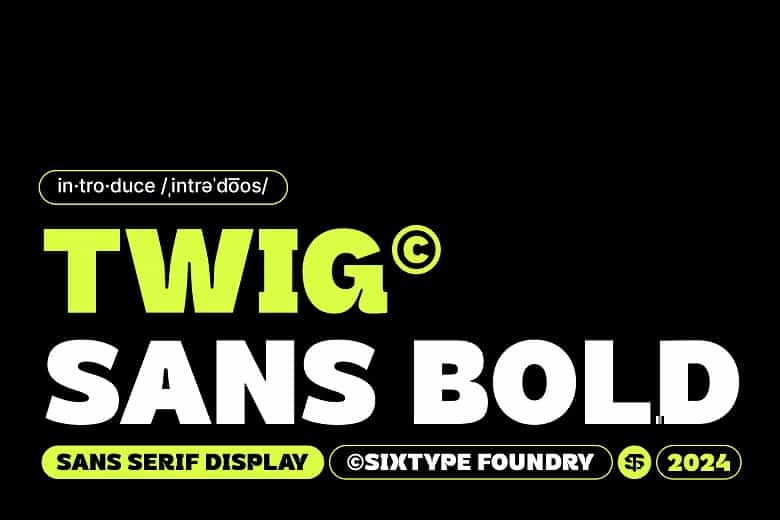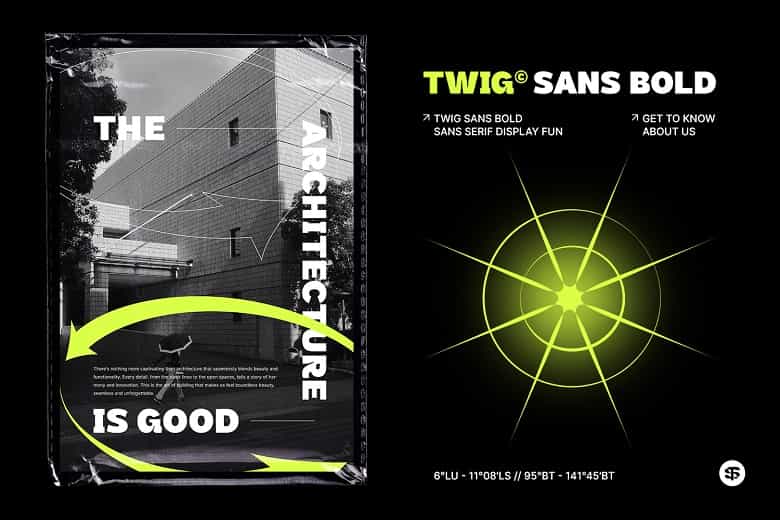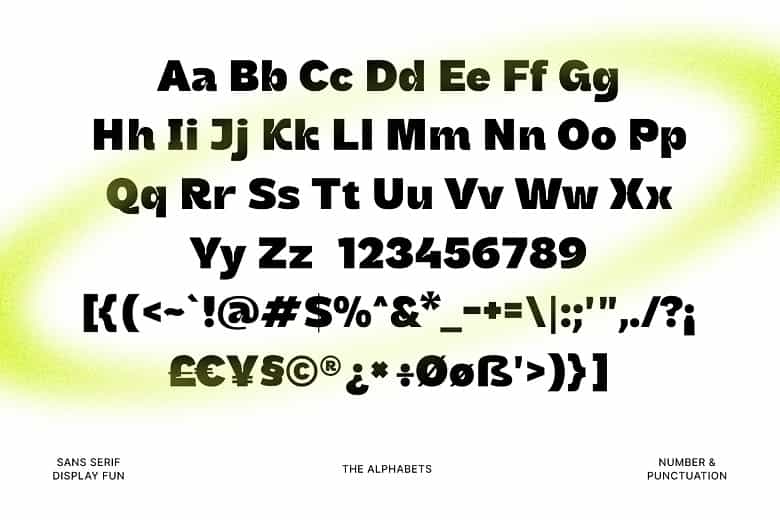
The text rendered with bold version of Twig Sans is very easy to read and looks as if it comes from the time when clear and strong fonts were a must for the effective visual communication. Due to its simple, yet elegant design, this font has a historical look and feel to it, while at the same time meeting all the requirements of today’s world.